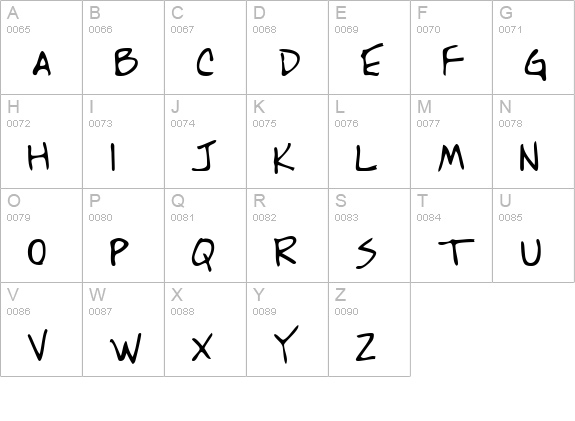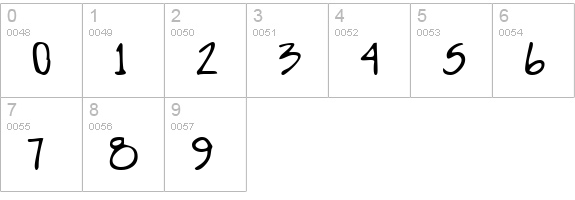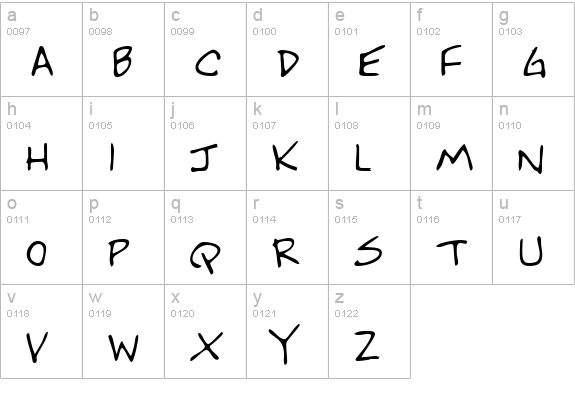
RonaldsHand Regular Font Details
RonaldsHand Regular is the standard, neutral variant in the RonaldsHand typeface family \xE2\x80\x94 well suited to general body text, paragraphs, and standard typographic work.
RonaldsHand Regular font is a delightful and charming typeface that exudes a sense of warmth and friendliness. Its whimsical and playful design makes it perfect for a variety of creative projects, from greeting cards to children's books. The handwritten style adds a personal touch to any text, giving it a unique and inviting feel. What makes RonaldsHand Regular font even more appealing is that it is completely free to download at FontsMarket.com. This means you can easily access this beautiful font and use it in your designs without any cost. Whether you're a professional designer or a casual hobbyist, RonaldsHand Regular font is a versatile and accessible option that will add a touch of personality to your projects. Download it today and let your creativity shine with this charming and free typeface.